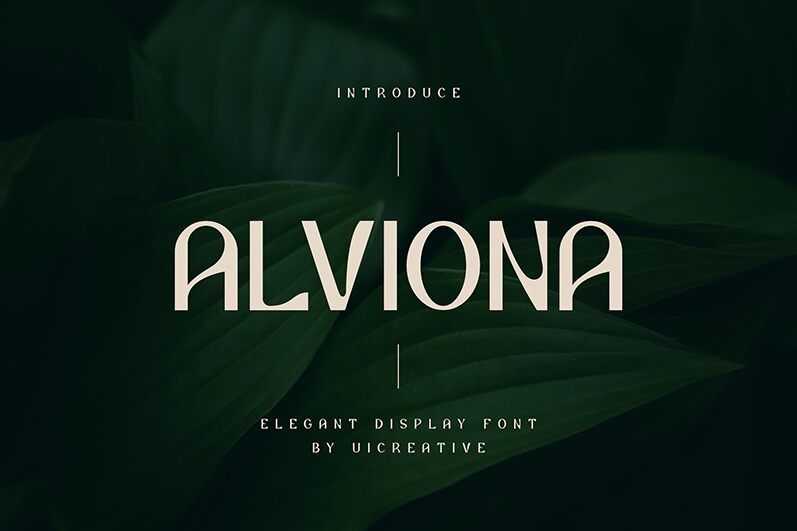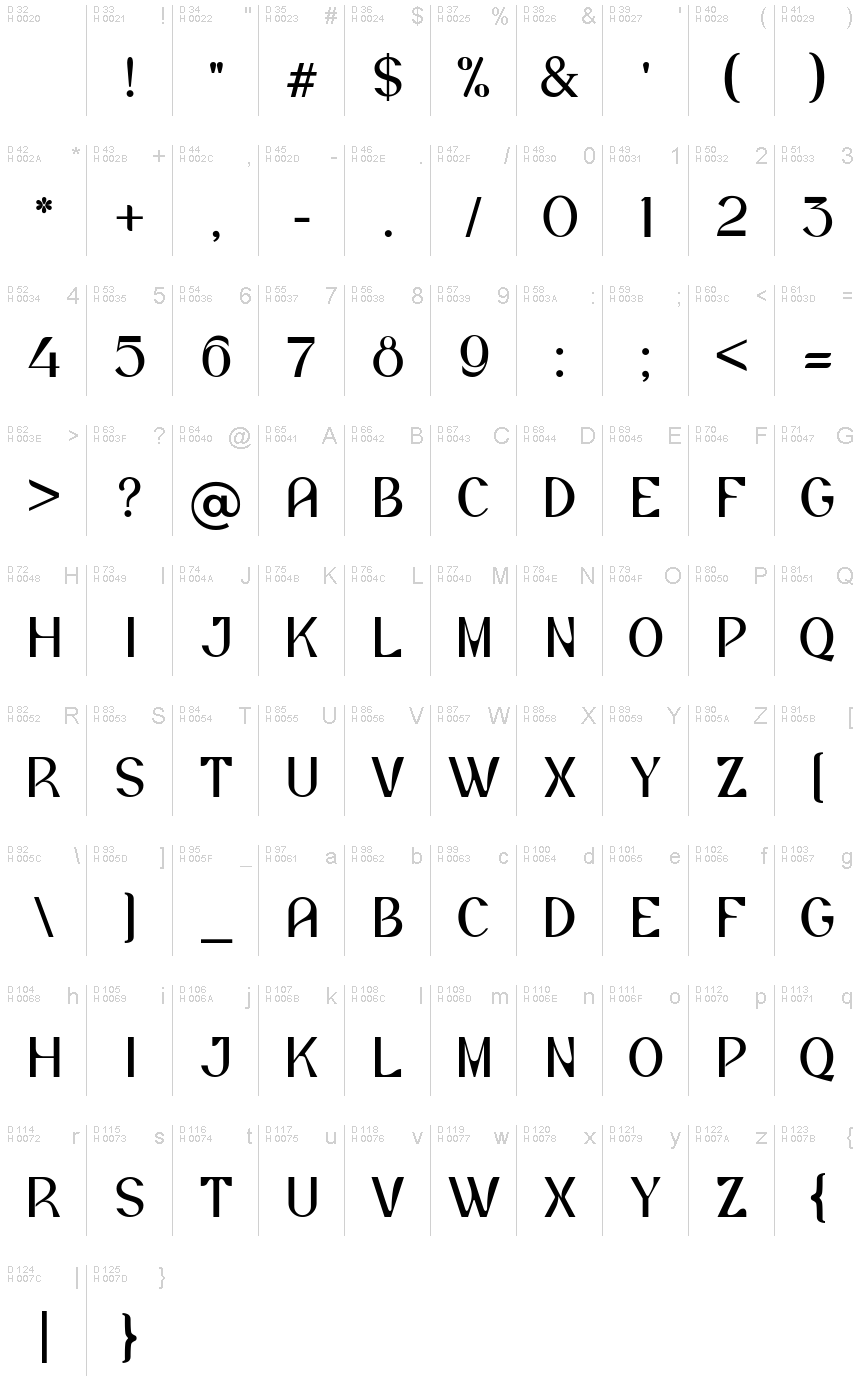
Alviona
Alviona by UI Creative is a captivating display font that exudes a distinct retro charm. Its bold, angular letterforms and elegant curves create a striking visual impact, evoking a sense of vintage allure and timeless sophistication. The font's unique personality is accentuated by its seamless balance of modern and nostalgic elements, making it a versatile choice for a wide range of design applications.
Alviona's versatility shines through its ability to elevate a variety of design projects, from eye-catching headlines and impactful logos to vintage-inspired branding and retro-themed editorial layouts. Its bold presence and retro-inspired flair make it an excellent selection for design projects seeking to capture a sense of timeless elegance, whether in the realm of fashion, music, or lifestyle-oriented brands.